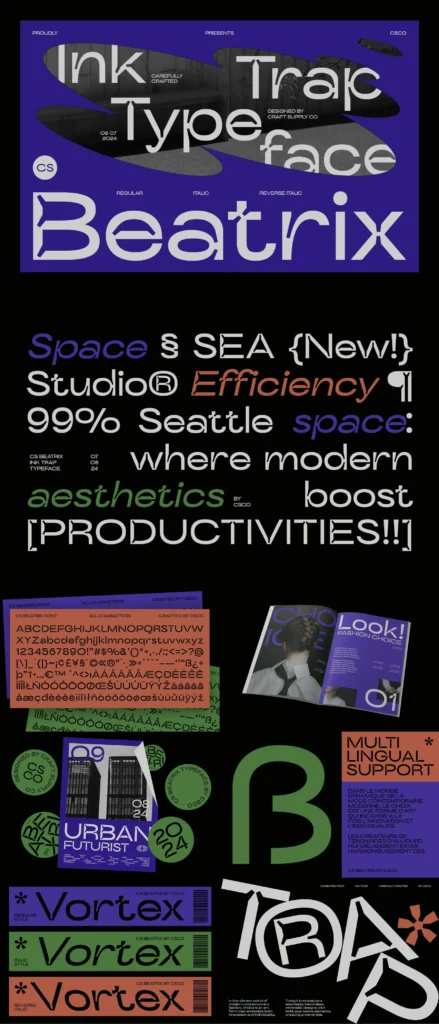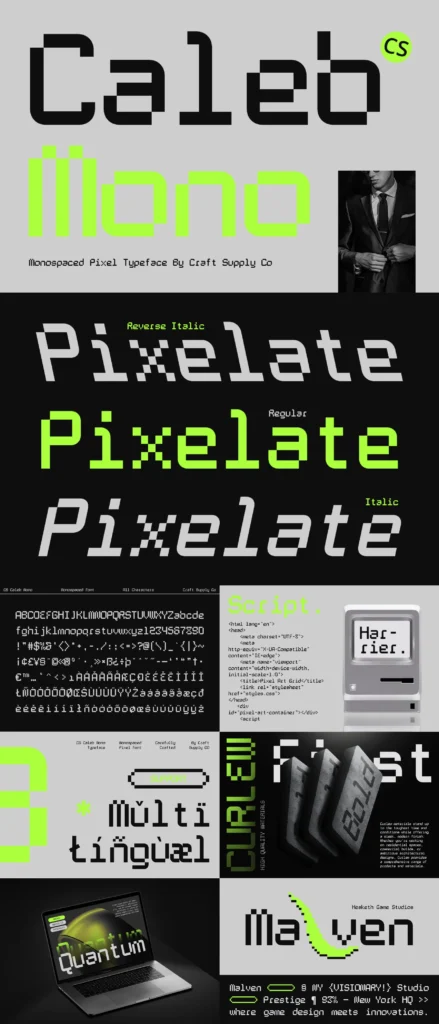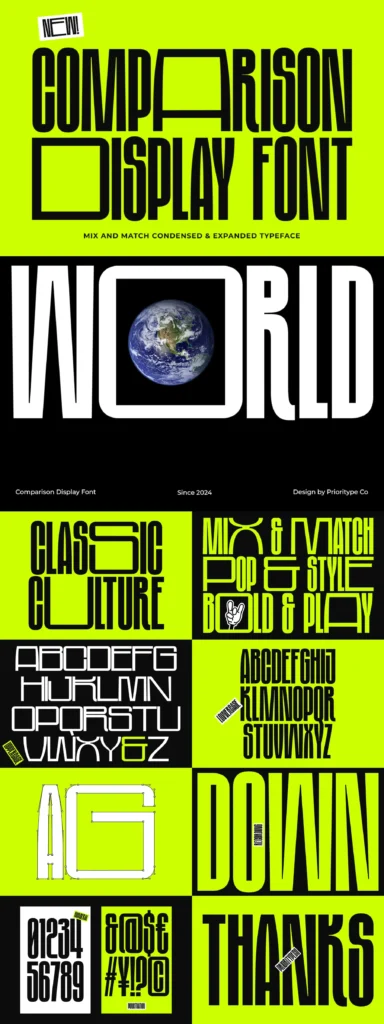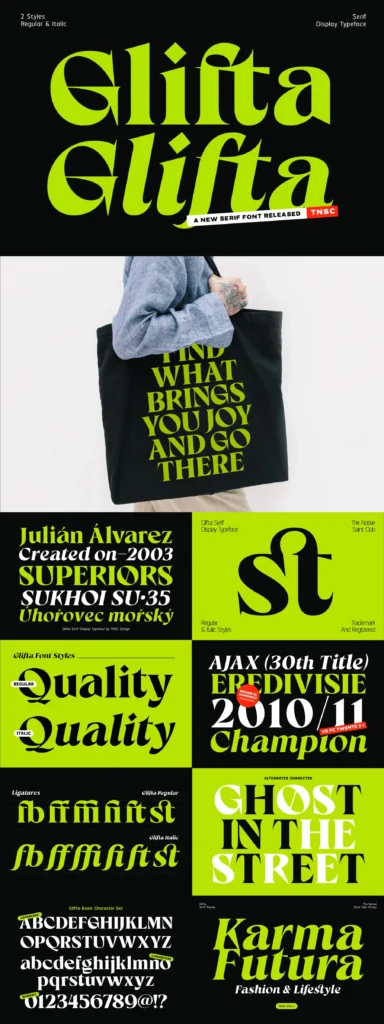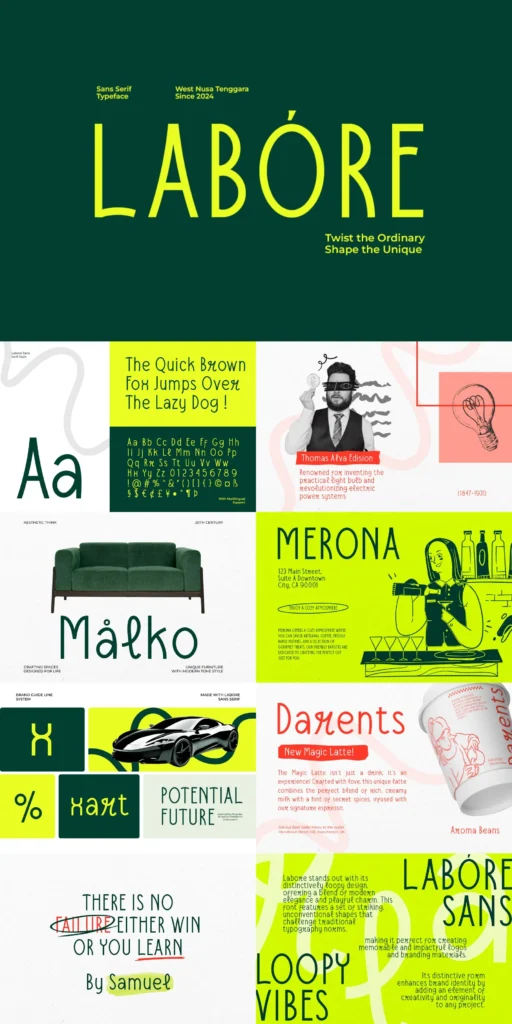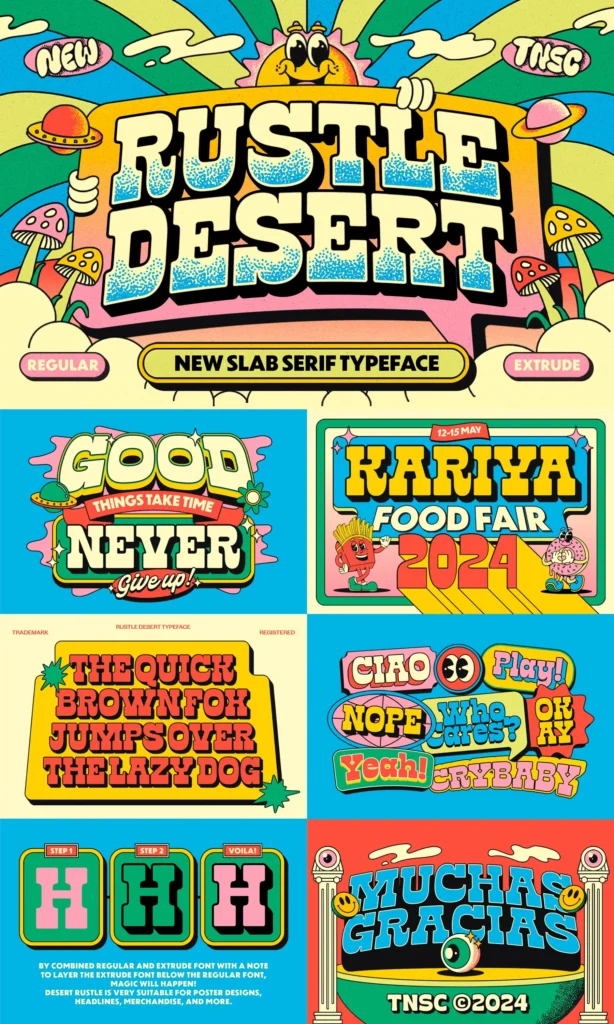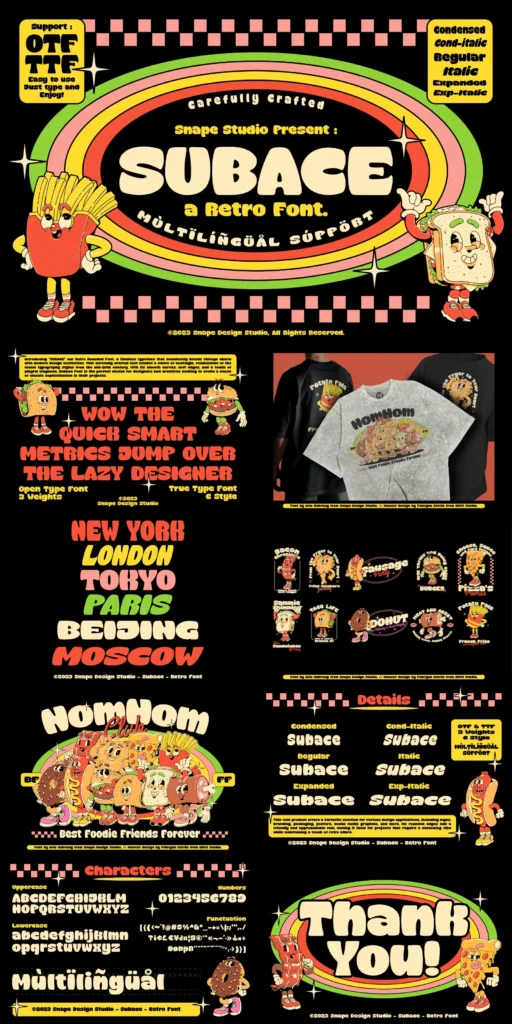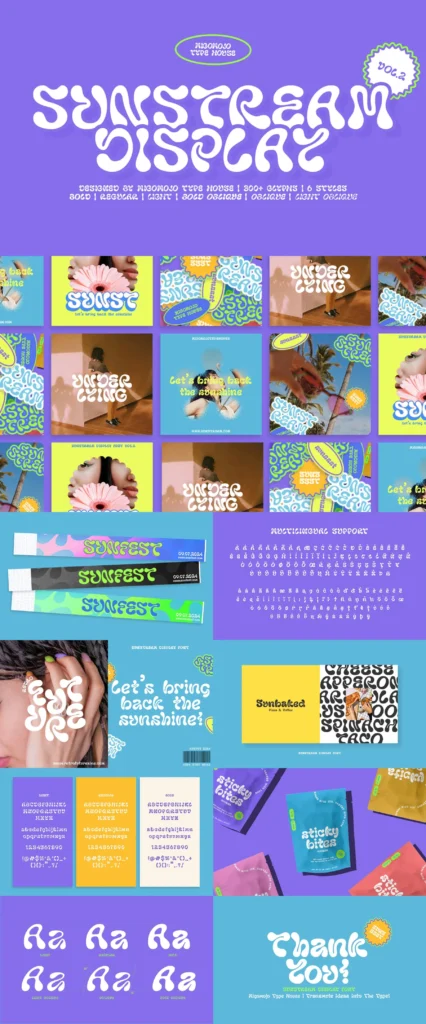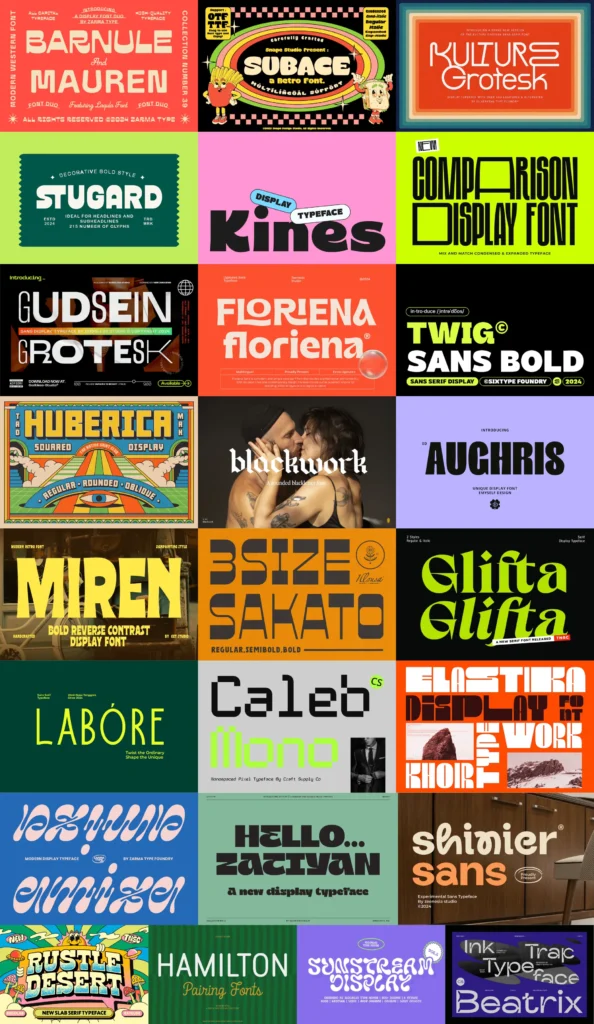
The Inspired Display Font Bundle
gives you a brand new set of
bold, attention-grabbing typefaces—95% Off!
Whether you’re designing vibrant social media graphics, ads, packaging or standout logos, these fonts were selected to make a huge impact. With a diverse mix of modern, retro, and experimental styles, there’s something here for every creative project.